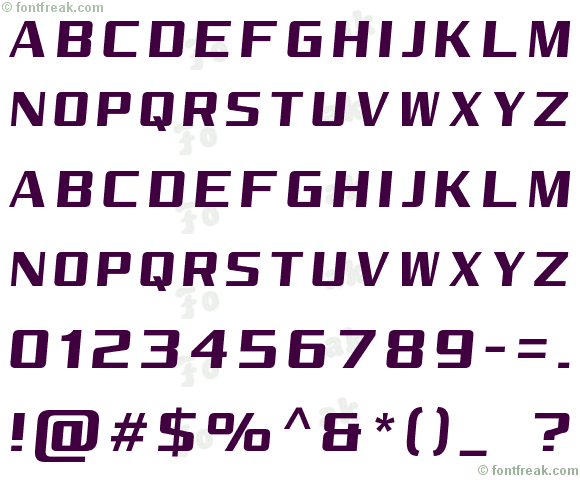
Reality Pursuit NC
About Reality Pursuit NC
Reality Pursuit NC is a striking display font designed by Jayvee Enaguas, characterized by its bold, geometric forms and clean lines. The font stands out with its sans-serif style, which offers a modern, minimalist aesthetic. The strokes are thick, providing a strong presence that captures attention, while the uniform weight and sharp edges lend a sense of urgency and dynamism. This makes it an ideal choice for a variety of design projects where impact is crucial.
The spacing in Reality Pursuit NC is well-balanced, allowing for easy readability while maintaining a contemporary feel. Its distinctive look is enhanced by subtle angular elements, which add a unique flair without overwhelming the overall design. This font is perfect for eye-catching applications such as movie posters, where it can evoke excitement and intrigue. Additionally, it works well for branding materials, making it an excellent choice for small business owners looking to establish a memorable identity. Reality Pursuit NC also shines in event promotions, particularly for music festivals or artistic showcases, where its boldness can effectively convey energy and creativity. Content creators will find it beneficial for social media graphics and advertising campaigns, as it effortlessly draws viewers in.
The target audience for Reality Pursuit NC includes graphic designers, small business owners, and content creators who seek to make a strong visual statement. Its versatility allows it to adapt to a range of contexts without losing its impactful essence. For those looking to enhance their designs, Reality Pursuit NC font free download provides an accessible opportunity to incorporate a unique typographic style that stands out in any setting. In a world filled with generic fonts, Reality Pursuit NC offers a fresh perspective that can elevate any project.